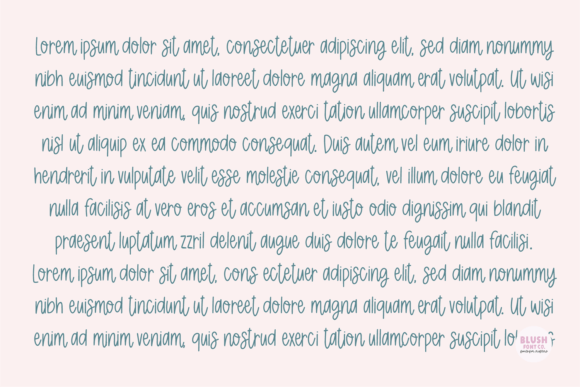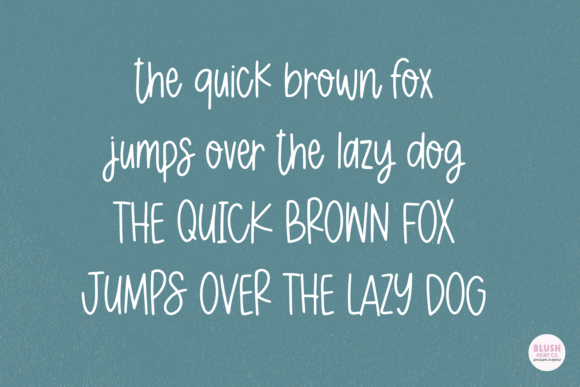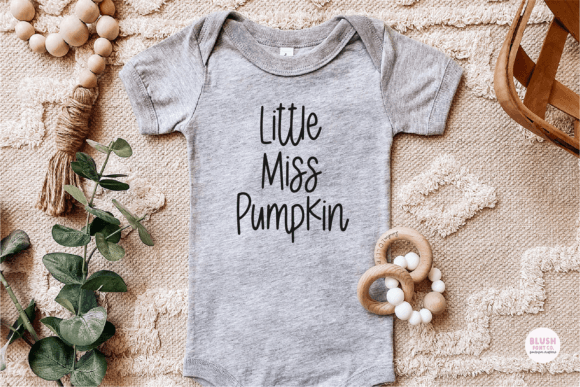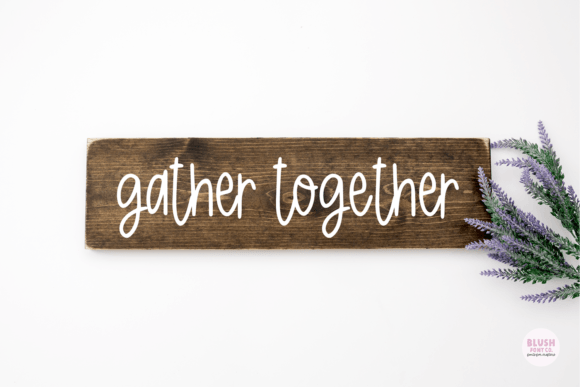
Introduction to Forest Marsh Font
Forest Marsh is a cute handwriting font that is perfect for social media or crafty projects.
Use it for branding, crafts for decor, invitations, and more .
Key Features of Forest Marsh Font
Why Choose Forest Marsh Font?